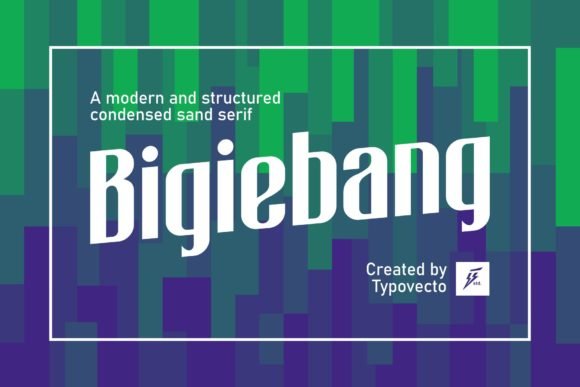
Enter Bigiebang Font, a sweet and cool sans serif font that’s about to become your new go-to companion. This unique font is designed to make any design idea stand out, and we’re excited to share its story with you. Whether you’re working on a branding project, creating a social media campaign, or simply looking for a fresh perspective, Bigiebang Font is the perfect tool to add some excitement to your work.
With its versatility and modern style, Bigiebang Font is a valuable asset for designers of all levels. It’s time to discover the magic of Bigiebang Font and take your designs to the next level.
Bigiebang Font Key Features
- Unique Characteristics: Bigiebang Font features a unique blend of futuristic and organic elements, with distinctive geometric shapes and flowing lines that create a dynamic and eye-catching visual effect.
- Character Set: The font includes a comprehensive character set, including Latin, Cyrillic, and Greek alphabets, as well as punctuation and symbols, making it suitable for a wide range of languages and applications.
- Font Width and Height: The font’s x-height is approximately 60% of its cap height, creating a balanced and harmonious visual proportion.
Bigiebang Font Review
Overall, I think Bigiebang Font has some great qualities that make it a unique addition to any design project. ✨ The font’s bold, playful personality is infectious and can instantly elevate the tone of a piece. ✨ The range of weights and styles available makes it easy to find the perfect fit for any application, from headlines to body text. ✨ The font’s versatility is also a major plus, making it suitable for everything from branding and advertising to editorial and digital design.
However, I do think there are a few limitations to consider. ⚠️ For one, the font may be a bit too playful for some projects, and the bold weight can feel overwhelming if not used judiciously. ⚠️ Additionally, I’ve found that the font doesn’t quite work as well in smaller sizes, where the details can get lost. ⚠️ Finally, while the font is great for digital use, it may not be the best choice for print projects where high-quality paper and ink are involved.
- Unique, playful personality
- Range of weights and styles available
- Versatile for various design applications
- Works well in digital design
Biggiebang Font Practical Application Guide
Biggiebang Font is suitable for various design projects, including:
– Print materials (brochures, flyers, business cards)
– Digital marketing materials (email templates, landing pages)
Tips for Getting the Most Out of Biggiebang Font
Experiment with different font sizes, styles, and combinations to create unique visual effects.
– Pair Biggiebang Font with other fonts to create a striking contrast.
– Use it in combination with bold colors and textures to add depth to your design.